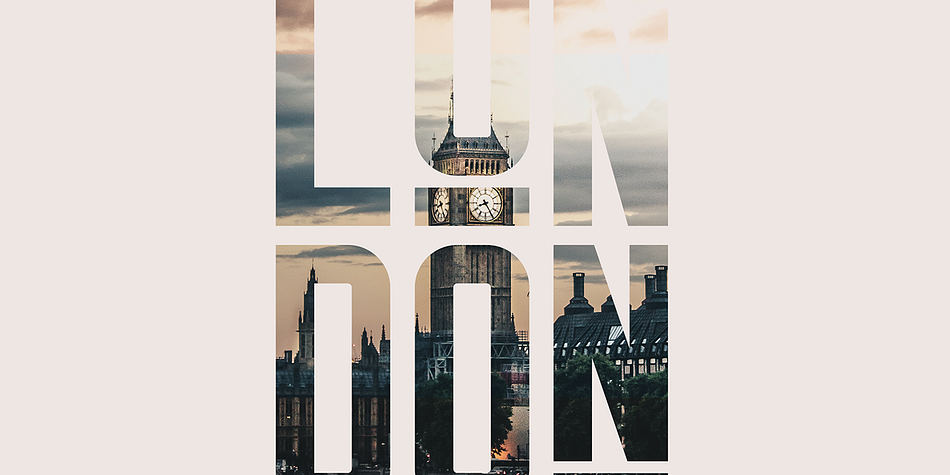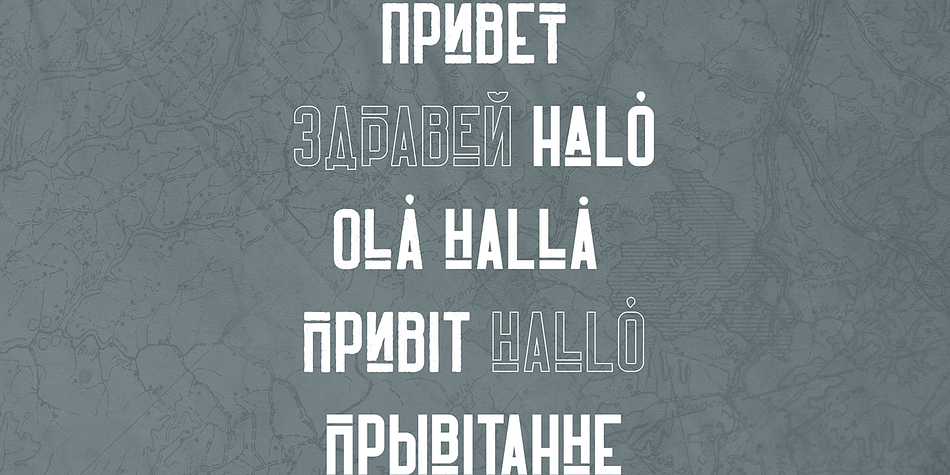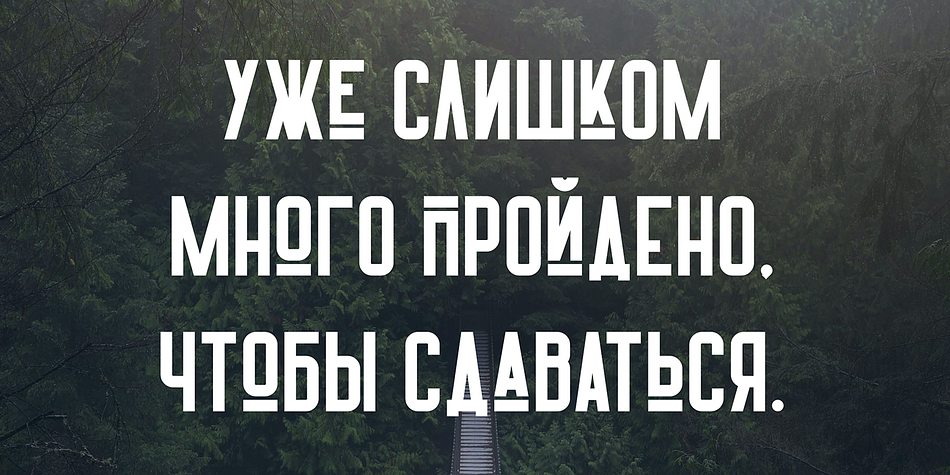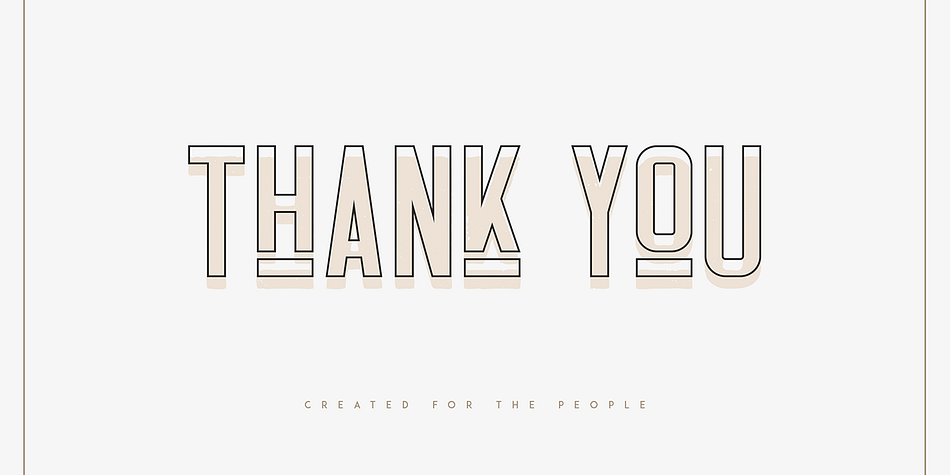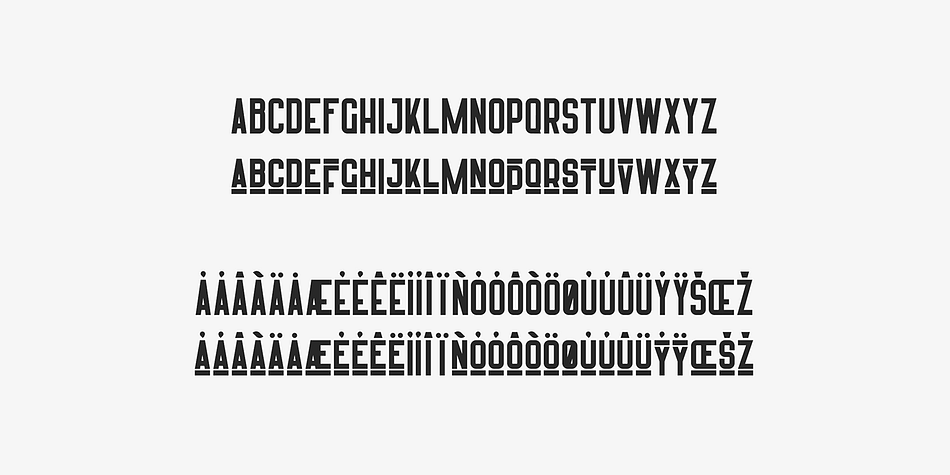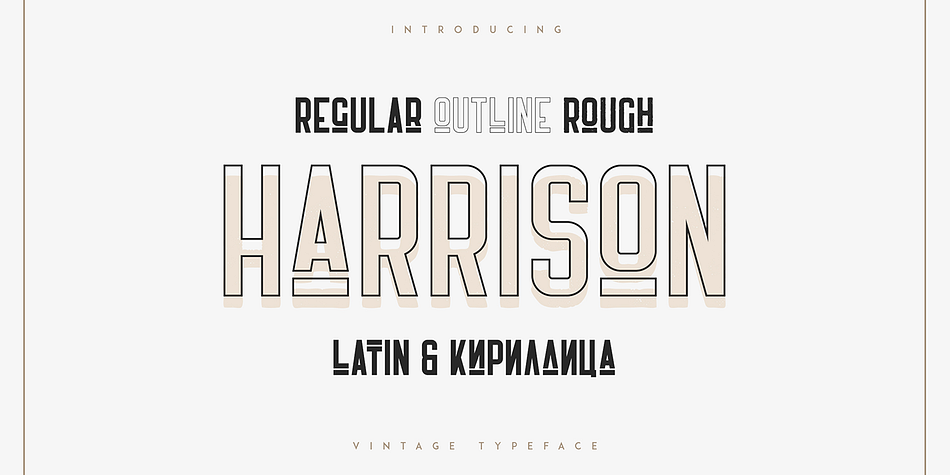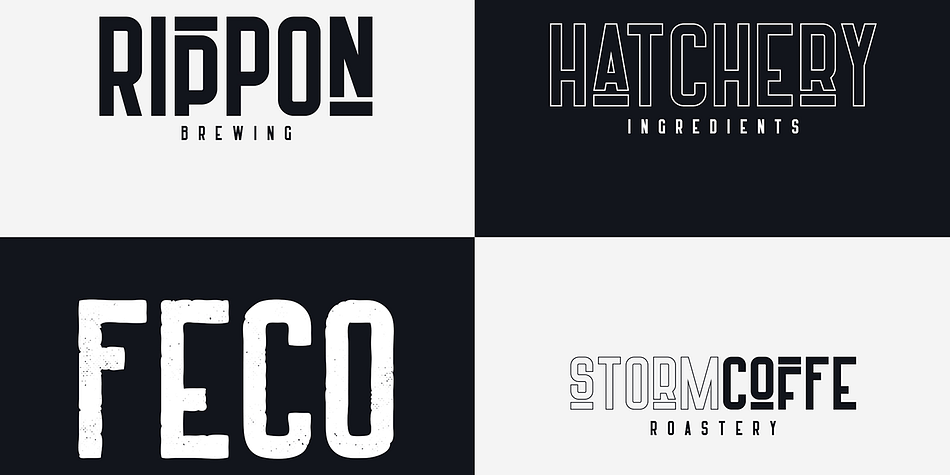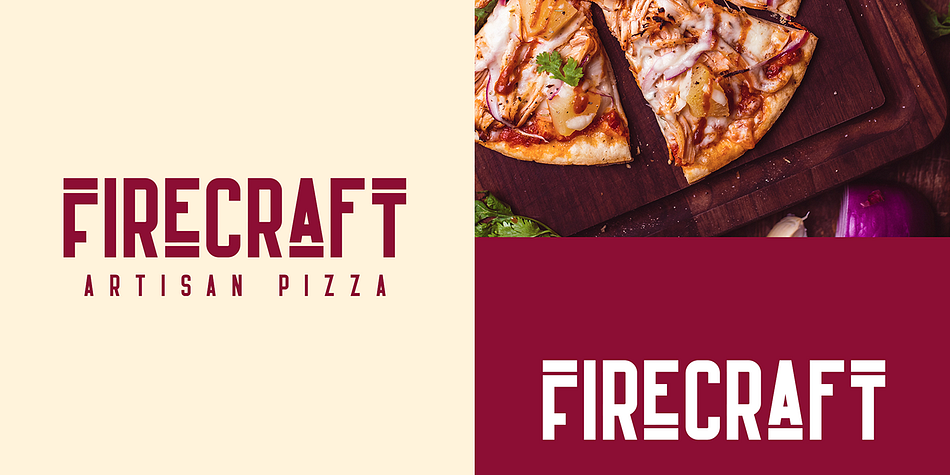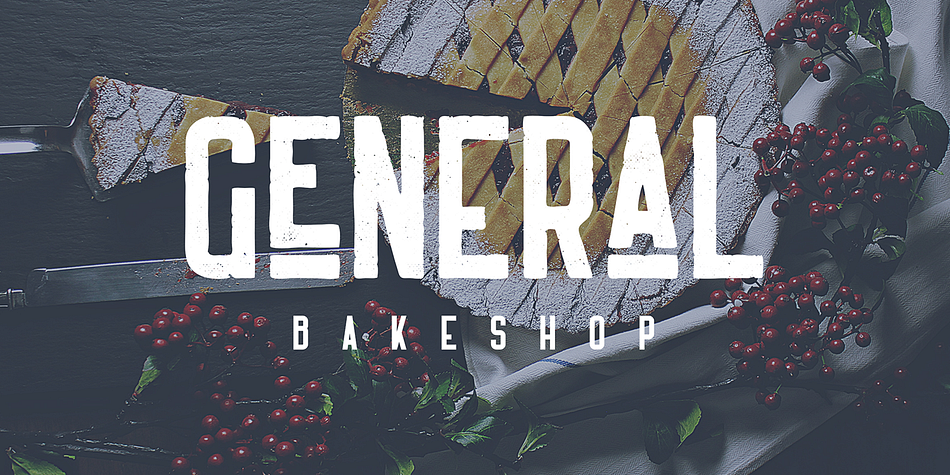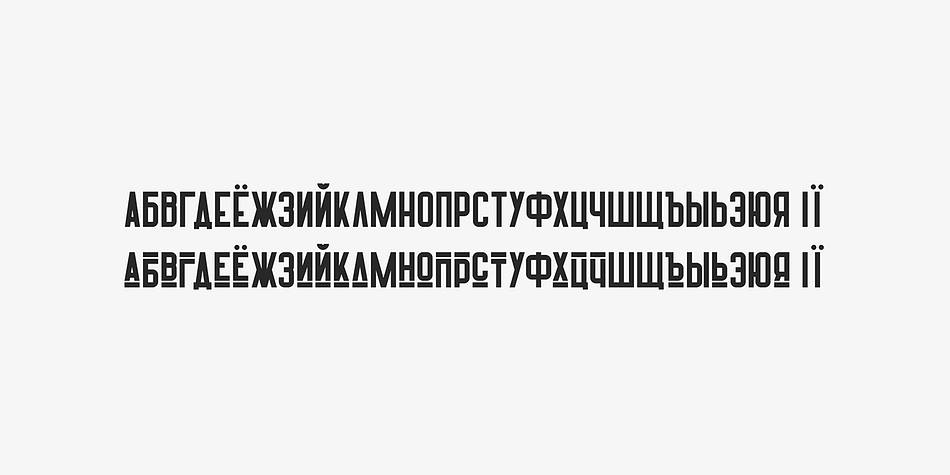
Harrison
Harrison is a display sans font family. This typeface has three styles and was published by VPcreativeshop.
Introducing Harrison retro font - latin and cyrillic
Harrison is retro, bold typeface with latin and Cyrillic support, includes regular, outline, rough versions and multilingual support.
It’s a very versatile font that works great in large and small sizes.
Harrison is perfect for branding projects, home-ware designs, product packaging, magazine headers - or simply as a stylish text overlay to any background image.
Uppercase, lowercase, numeral, punctuation & Symbol
Cyrillic support - Russian, Ukrainian, Bulgarian and more
Regular, outline, rough versions
Multilingual support